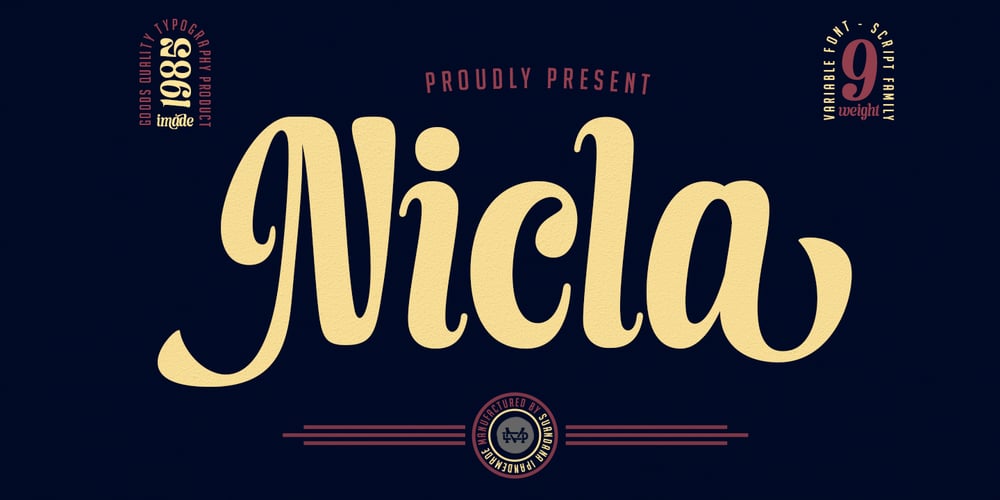
Nicla Font Family was designed by Suandana ipandemade, madededuk and published by madeDeduk. Nicla contains 9 styles and family package options. Introducing Nicla is a brand new beautiful script family with beautiful ligatures, much special alternative glyphs to get more stunning and multilingual support. Use this beautiful font for all your designs project, event and more.Feature 9 Weight UPPERCASE & Lowercase Number & Symbol International Glyphs Alternative & Ligatures Feel free to drop us a message any time and follow my shop for upcoming updatesShoot me on email at: dedukvic@gmail.com and find more previews on my Instagram here : https://www.instagram.com/acekelgondolayu/?hl=enHope you enjoy it.